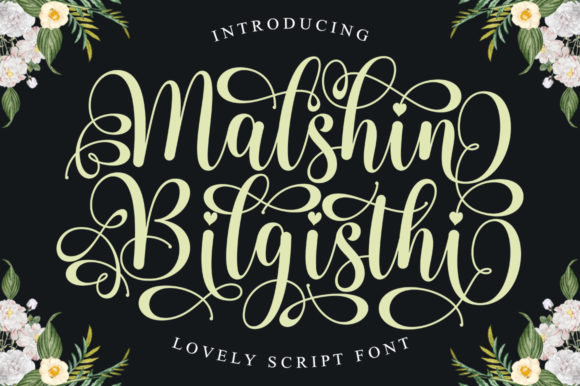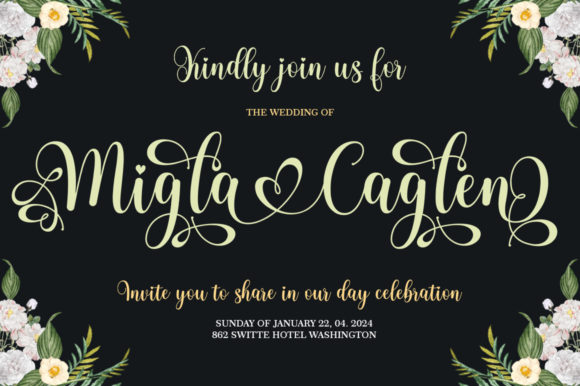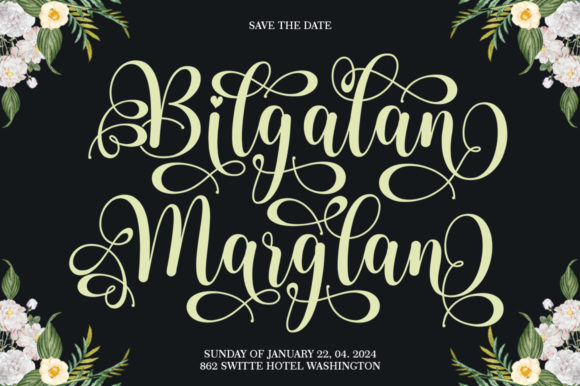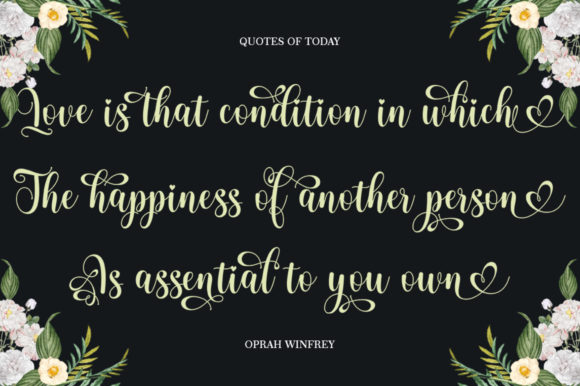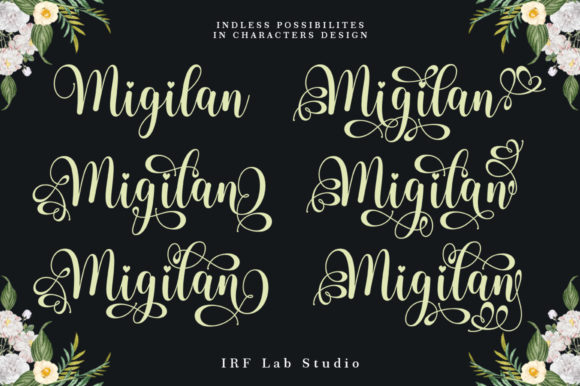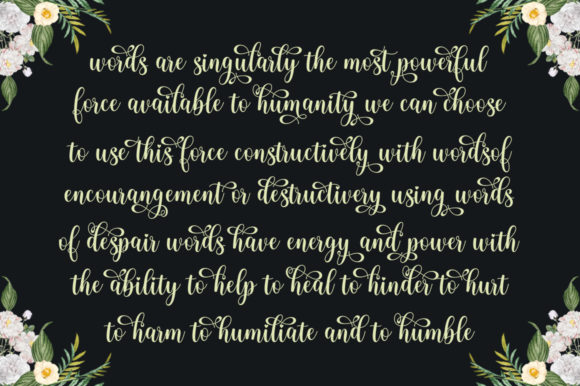
Malshin Bilgisthi Font
About Malshin Bilgisthi Font
Malshin Bilgisthi is a delicate and elegant handwritten font. Its distinct and well-balanced letters make this font a masterpiece. Fall in love with its incredibly versatile style and use it to create spectacular designs! This font is PUA encoded, which means you can access all of the glyphs and swashes with ease!